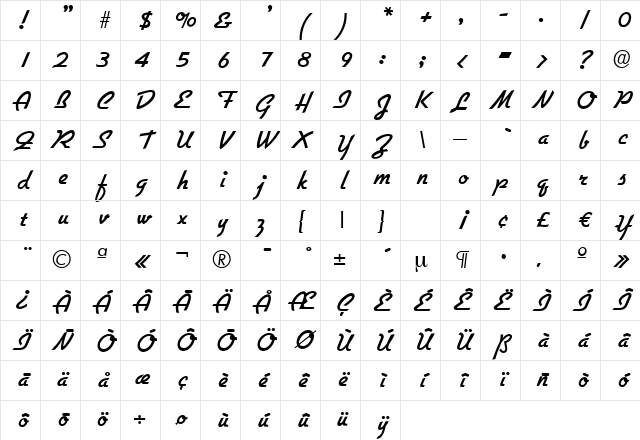
G731-Script Regular
Design Context for G731-Script
G731-Script flows with the natural rhythm of handwritten lettering, making it ideal for designs that call for warmth and personal expression.
Font Pairing: Combine G731-Script with a simple geometric sans for maximum contrast - the tension between flowing curves and clean structure is a classic typographic pairing.
Pro Tip: Use G731-Script for short runs of text - names, titles, or taglines. Extended body copy in script faces tires the eye quickly.